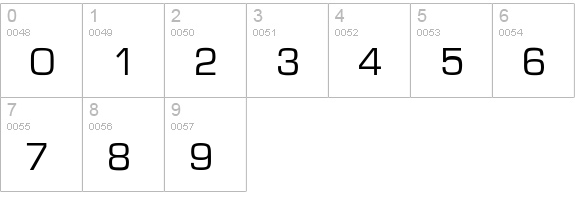
Eurostile-Roman-DTC font is a modern and sleek typeface that exudes a sense of sophistication and professionalism. Its clean lines and geometric shapes make it perfect for a wide range of design projects, from logos to website headers to print materials. The versatility of this font makes it a popular choice among designers looking for a contemporary and bold look. What sets Eurostile-Roman-DTC font apart is that it is available for free download at FontsMarket.com. This means that you can easily access this high-quality font without any cost, making it a valuable resource for both hobbyists and professionals alike. Whether you are working on a personal project or a client's design, Eurostile-Roman-DTC font is sure to elevate your work and give it a polished and modern aesthetic. Download it today and see the impact it can make on your designs!